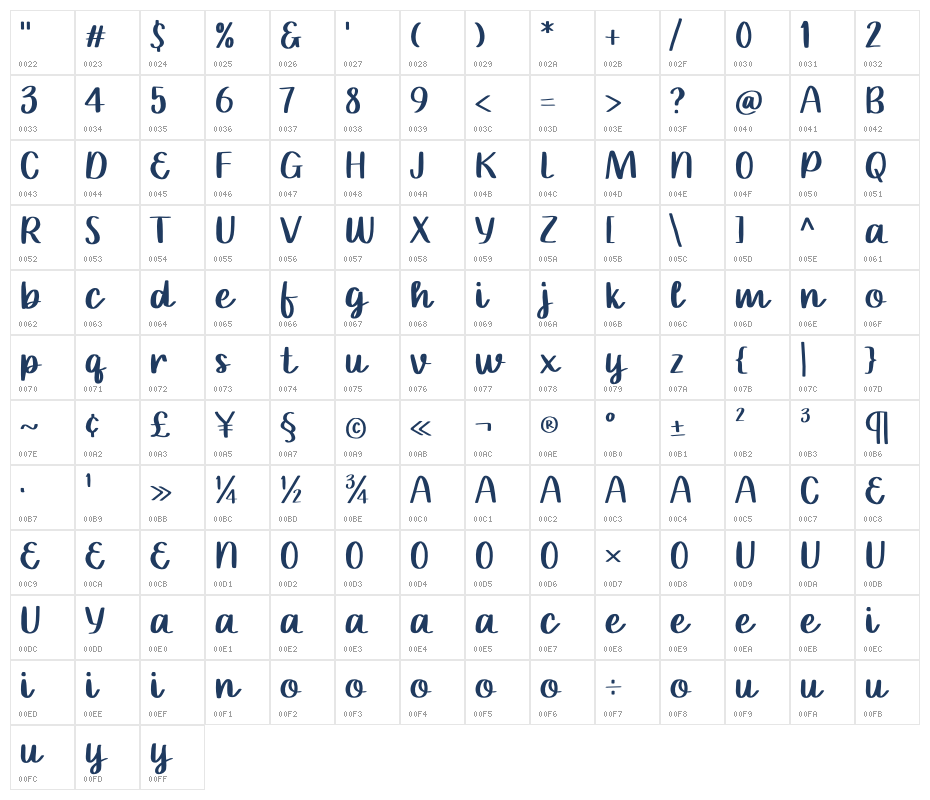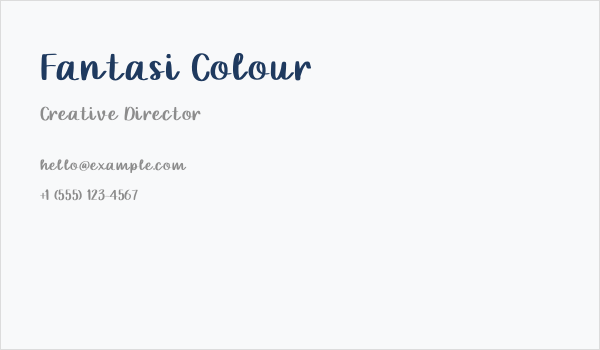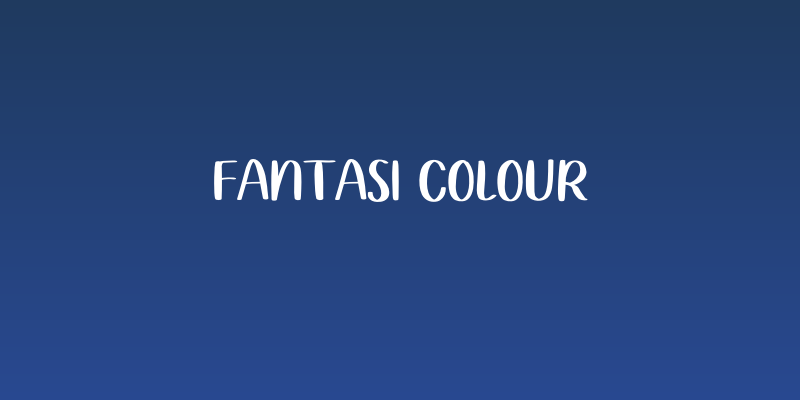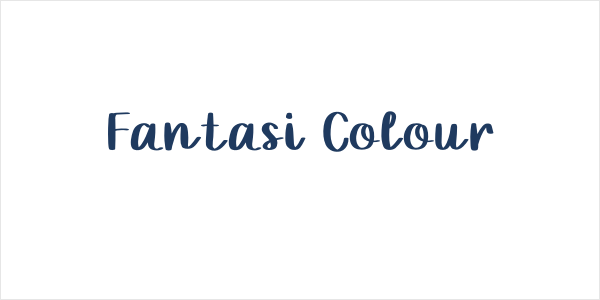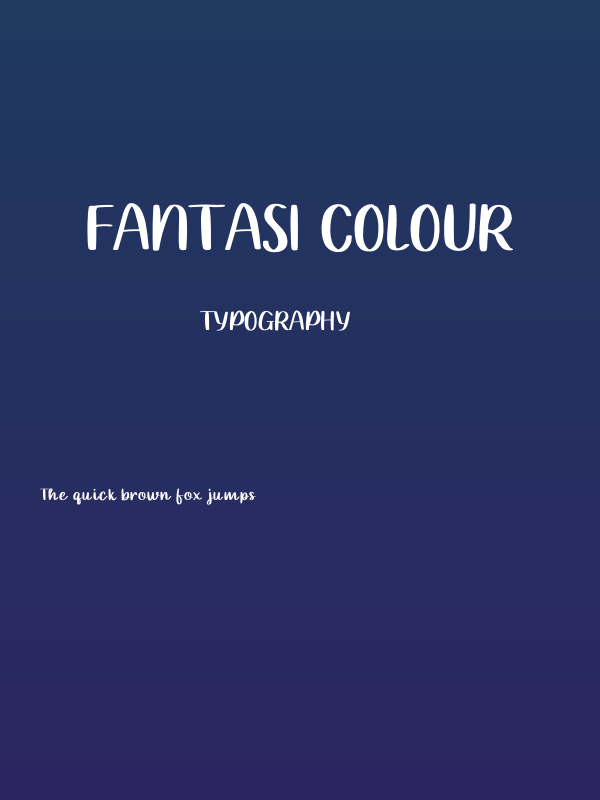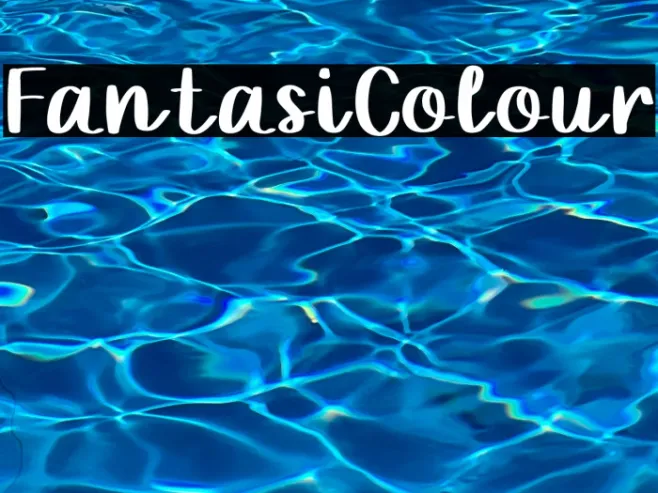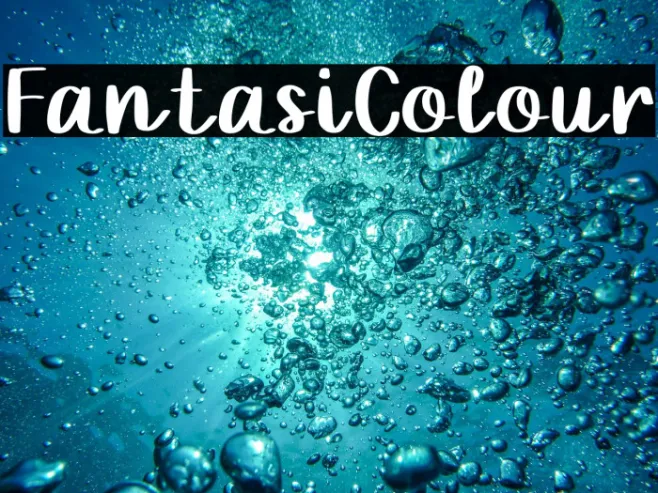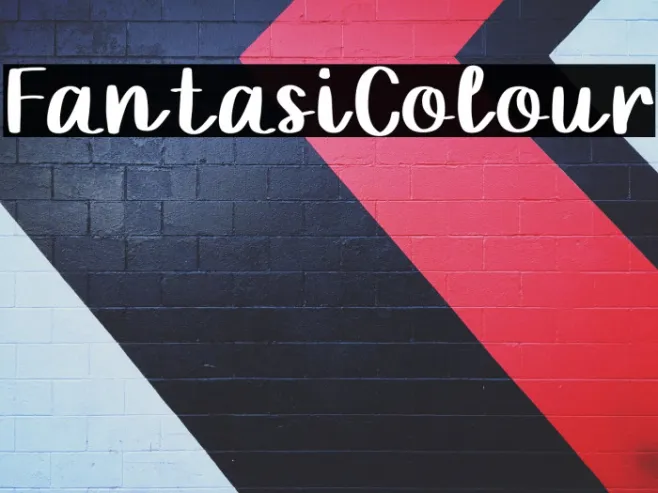
Fantasi Colour Font
Fantasi Colour Description
A playful, handwritten-style font with a casual and friendly appearance, featuring slightly irregular strokes and a smooth flow.
Hello Good Studio
| Overall Style | Casual, Friendly, Handwritten |
| Use Case | Headlines, Body text, Logos, Invitations |